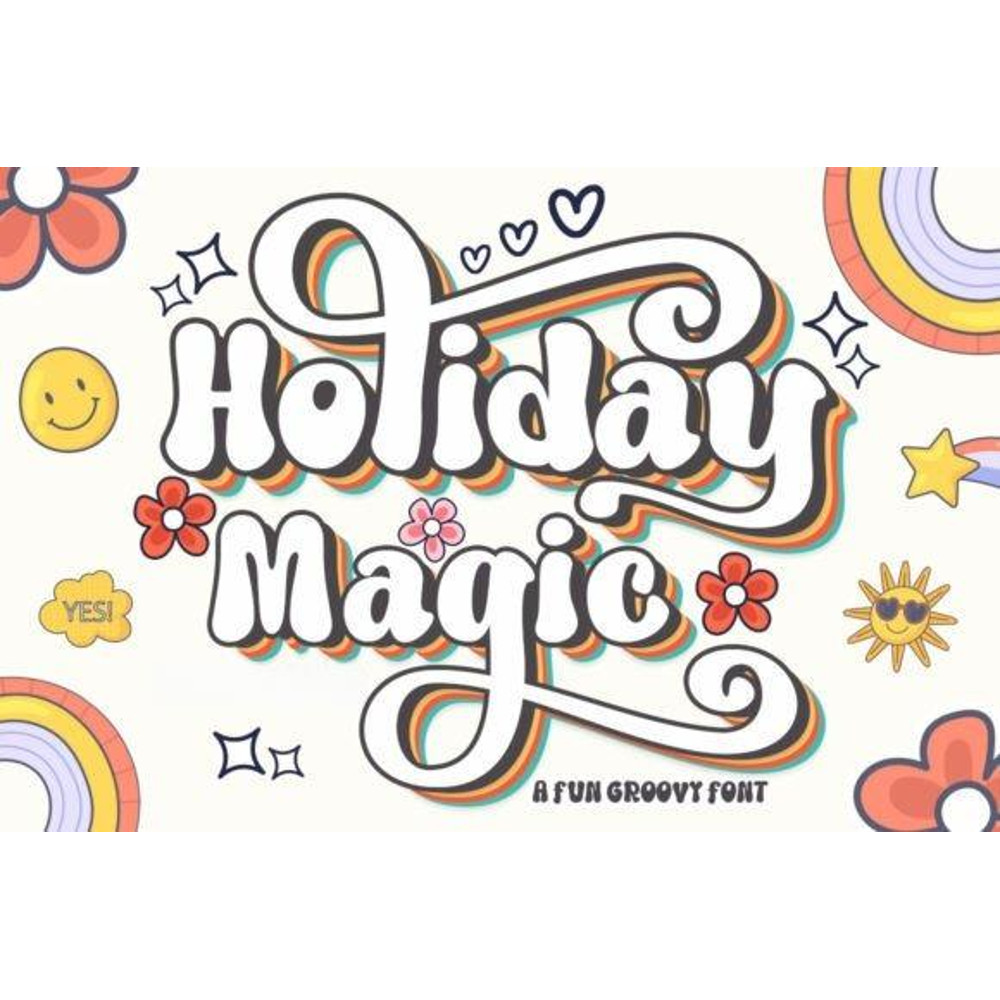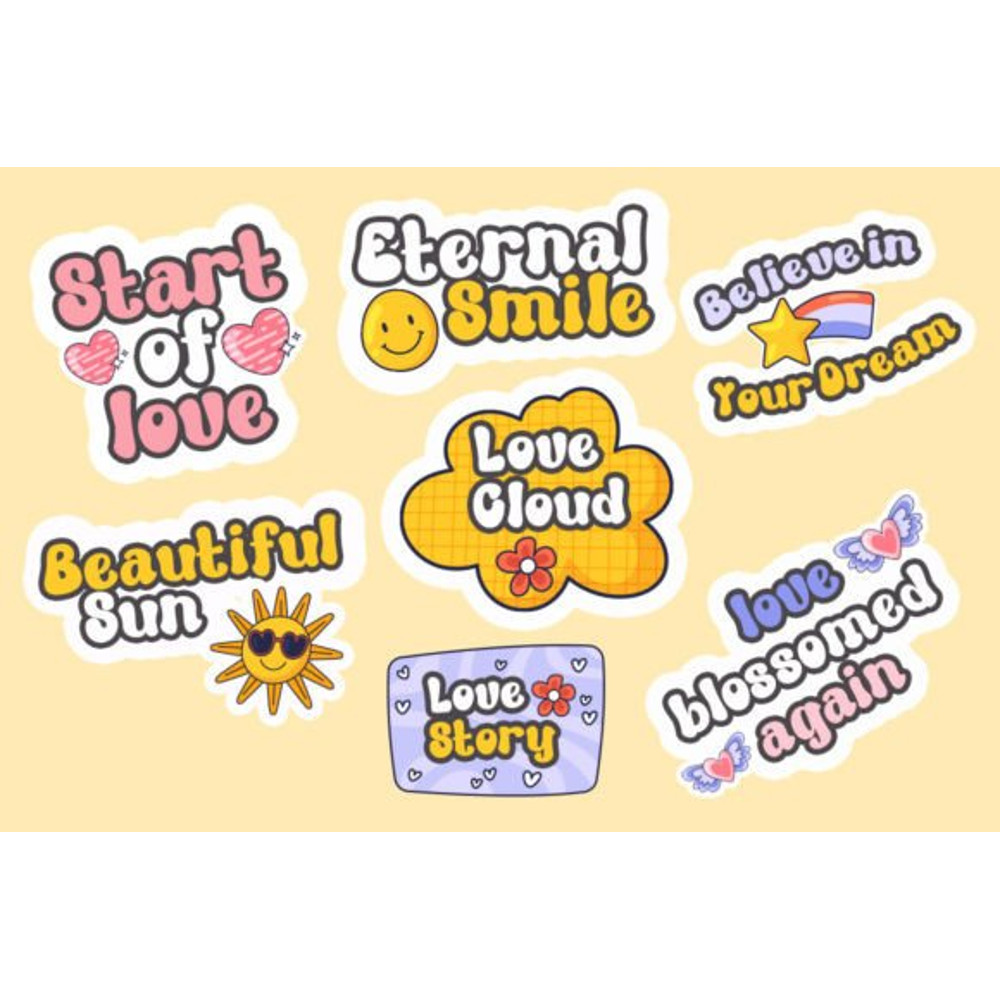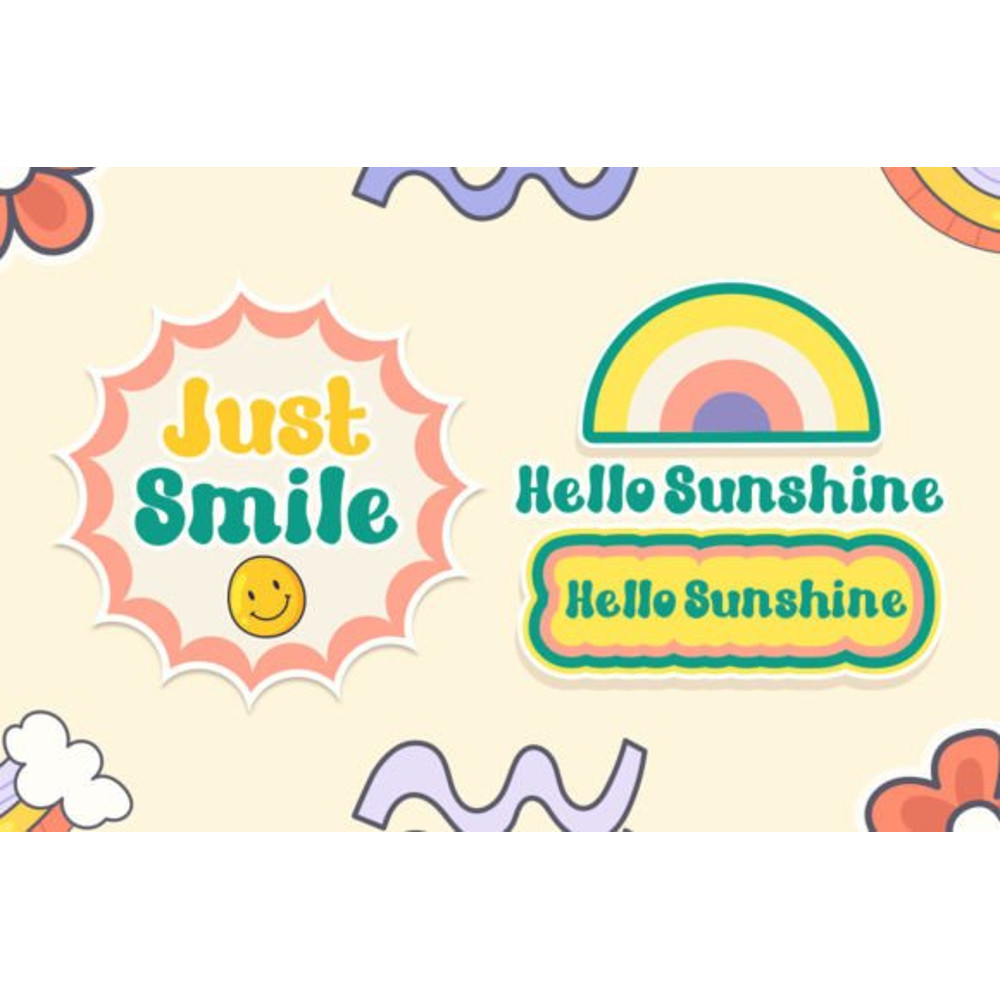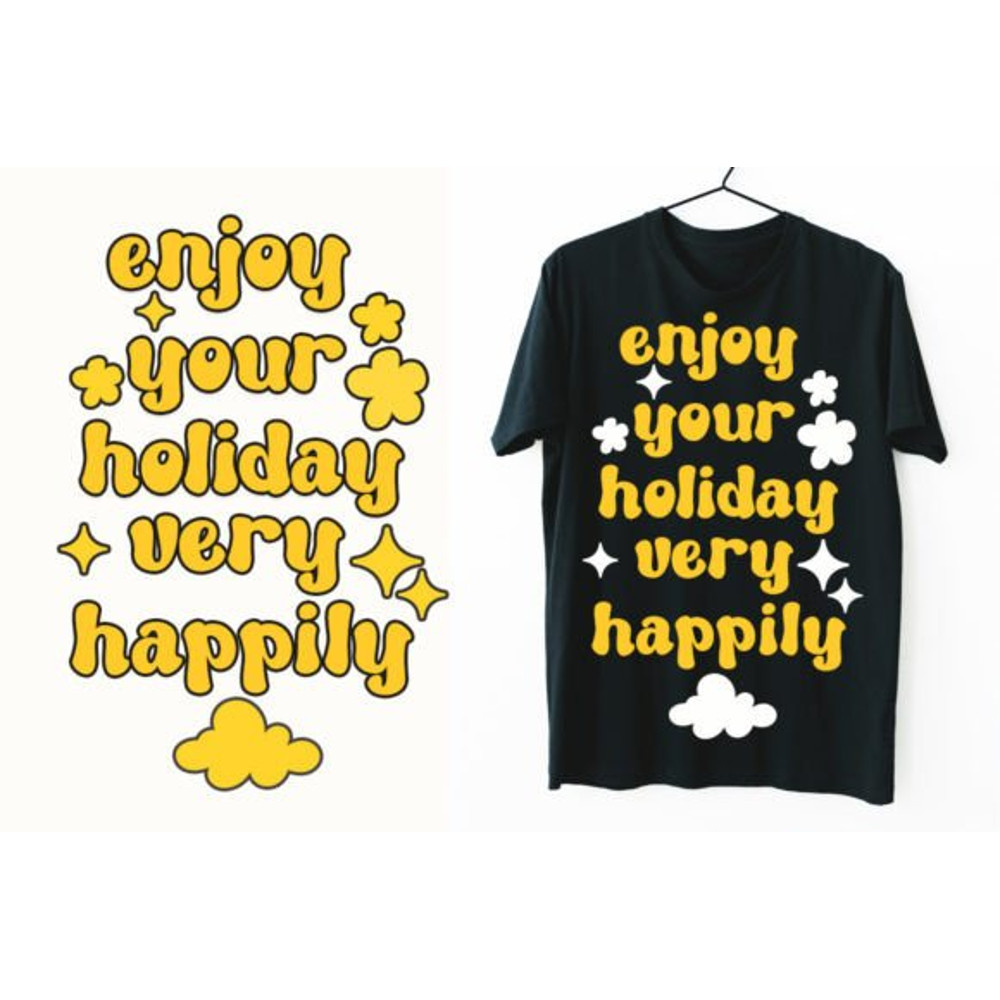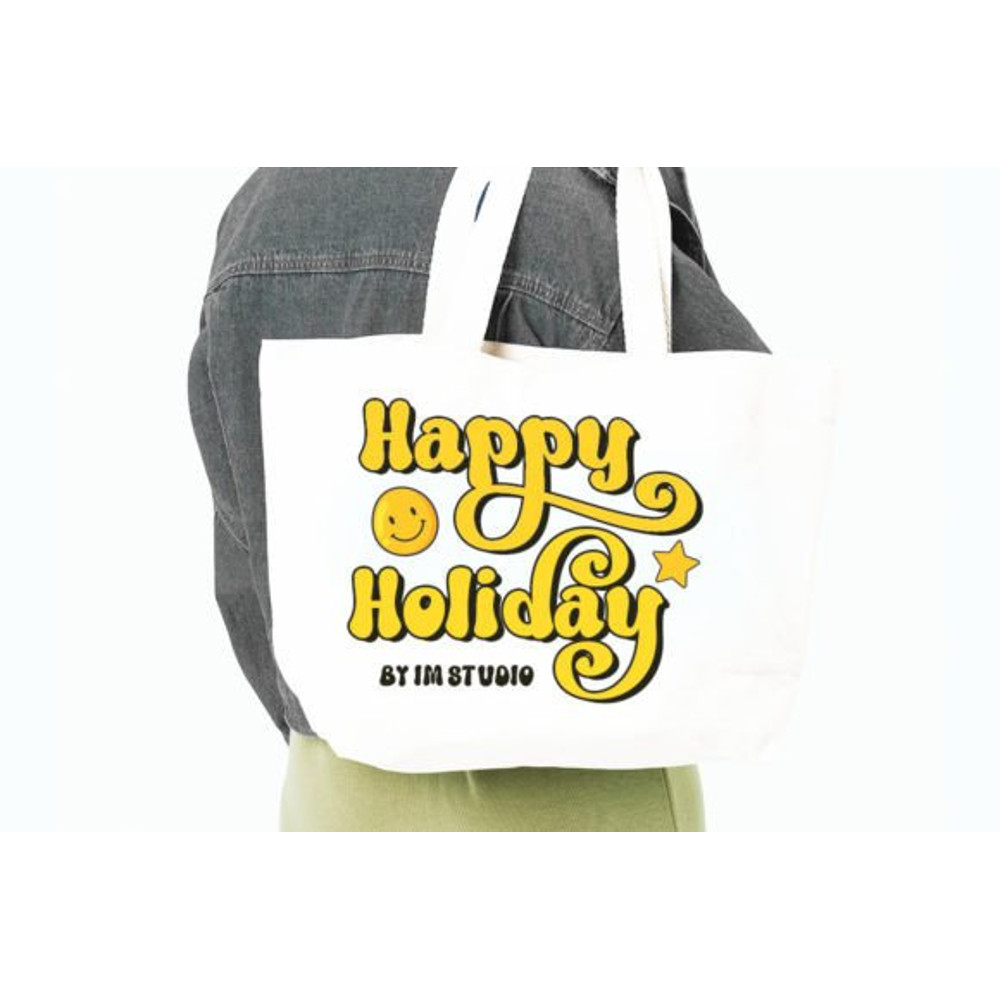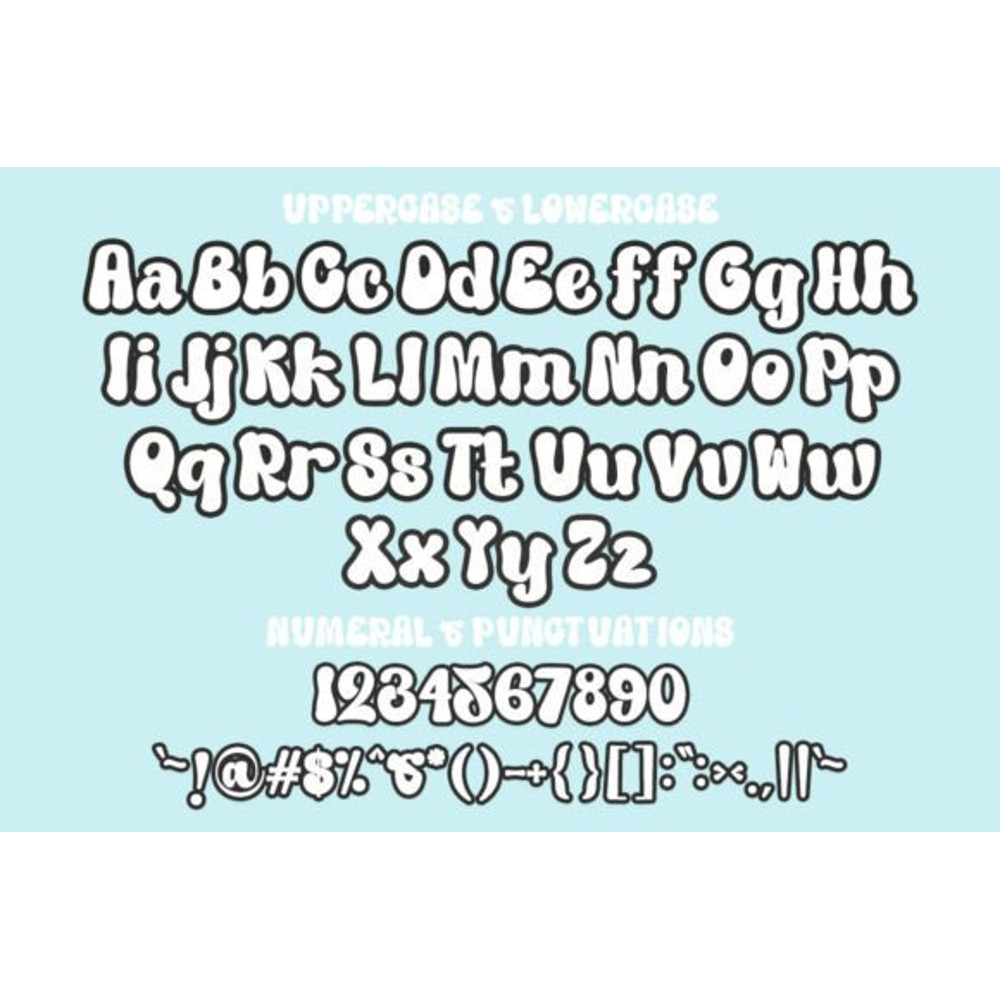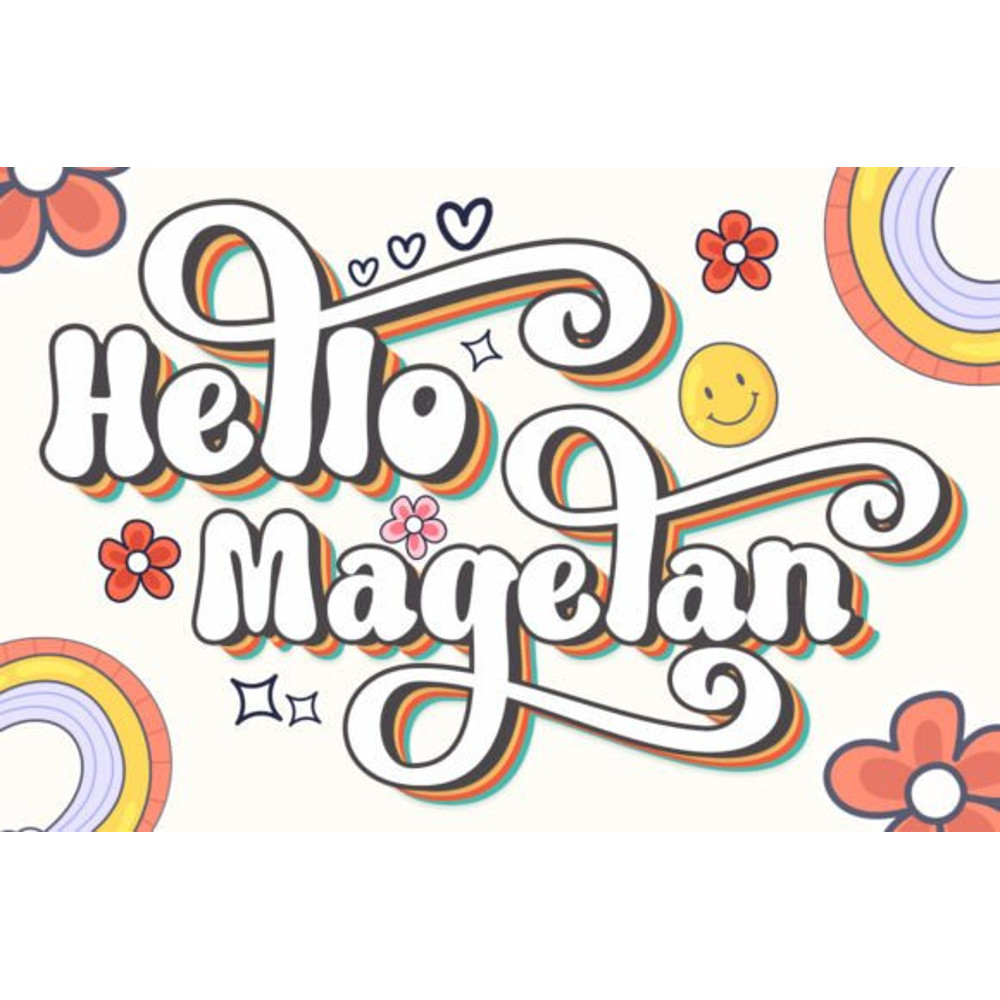
Holiday Magic Font
Holiday Magic is a versatile, stylish, and playful retro display font, perfect for a wide spectrum of applications such as greeting cards, headlines, and many more! Add it to any of your creative projects, and it will give them a romantic and exquisite feel.